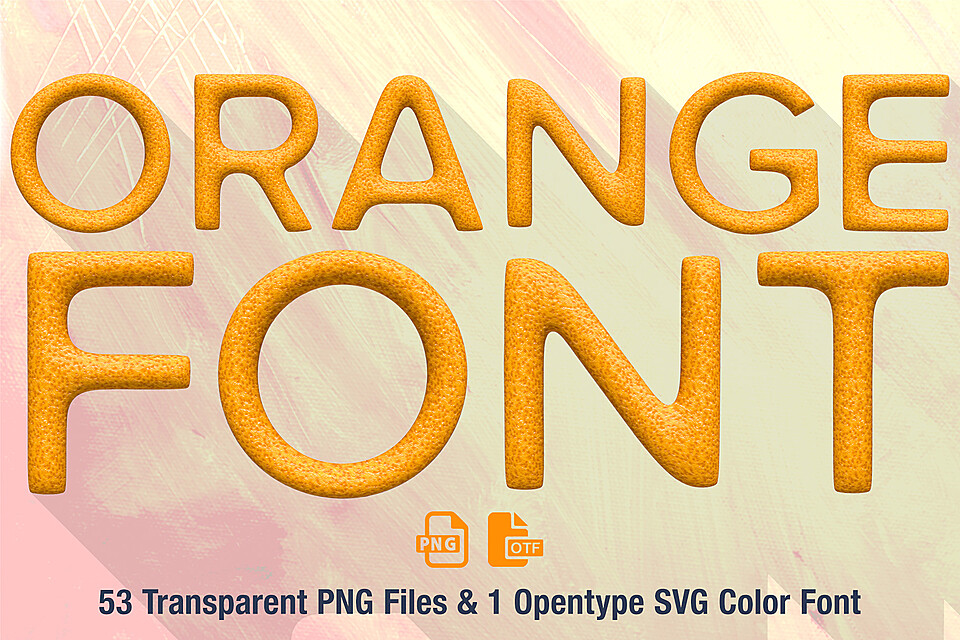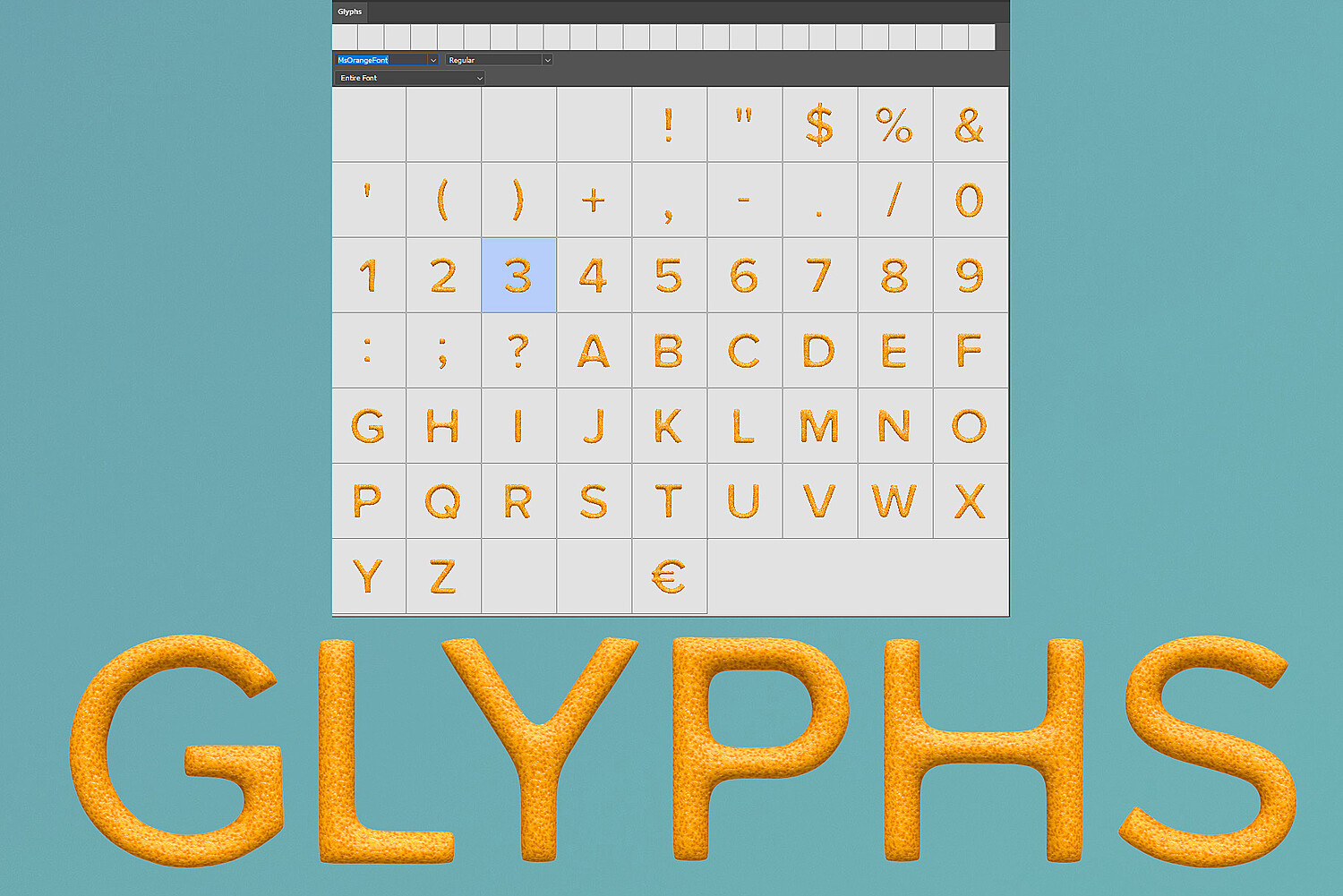
Ms Orange Bitmap Font and PNGs
Each letter is modelled and rendered in a 3D Application, also converted into an Opentype SVG (Color Font)
Basic western uppercase letters
Numbers
Extended Punctuation and Symbols